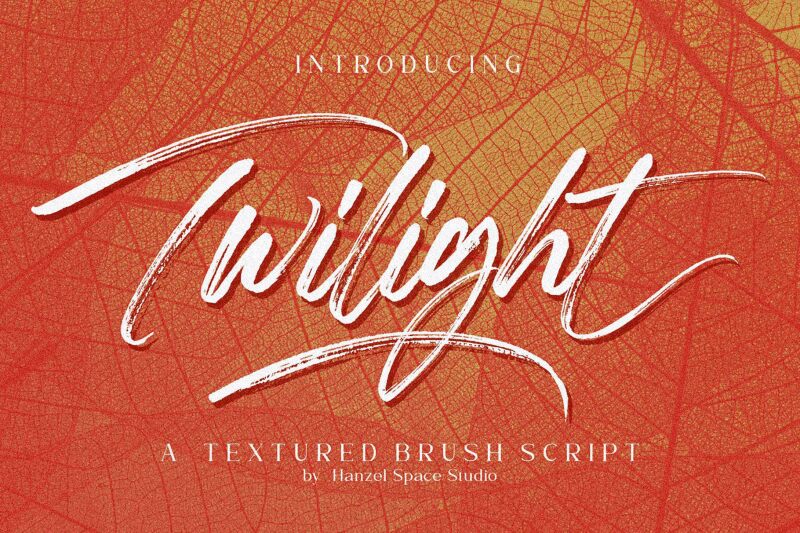
Twilight
Step into the evocative world of Twilight, a semi-light and semi-condensed brush font meticulously crafted by Hanzel Space. With its authentic brush pen origins, Twilight brings a raw, textured feel to the table, effortlessly infusing your designs with an organic and distinctive flair.
Whether you're looking to elevate your branding or add an artistic touch to posters and brochures, Twilight's versatile charm has you covered. Its unique character stands out in any context – from eye-catching logos that demand attention to inspirational quotes that stir the soul. Embrace the creative possibilities with Twilight Font and let your projects glow with a natural handwritten aesthetic that is as unique as it is effective.
The script includes a set of uppercase characters, numerals, symbols, two lowercase letter sets
- Full Set of standard alphabet and punctuation
- Extra set of ending swashed lowercase
- Handwritten ligatures
- Multilingual Characters (ẂŴẄẀŶỲ ẃŵẅẁŷỳ)